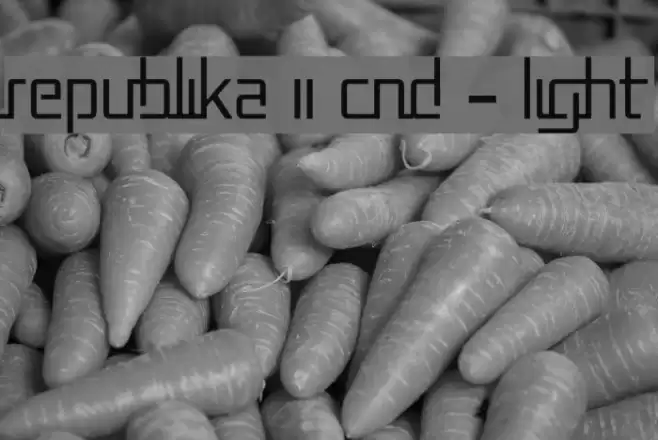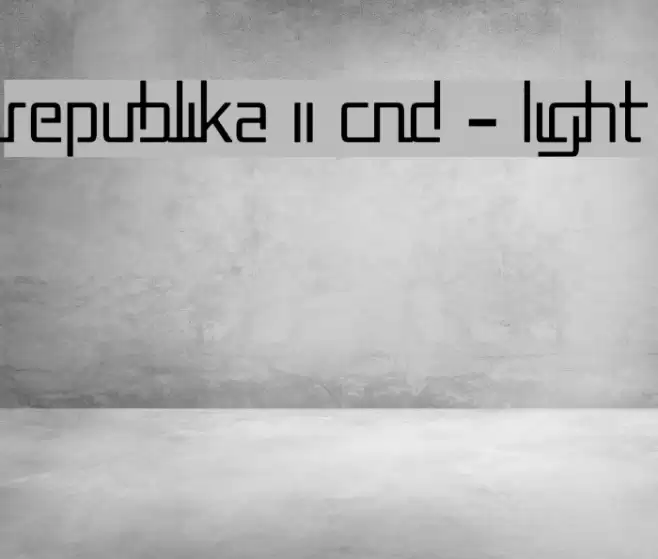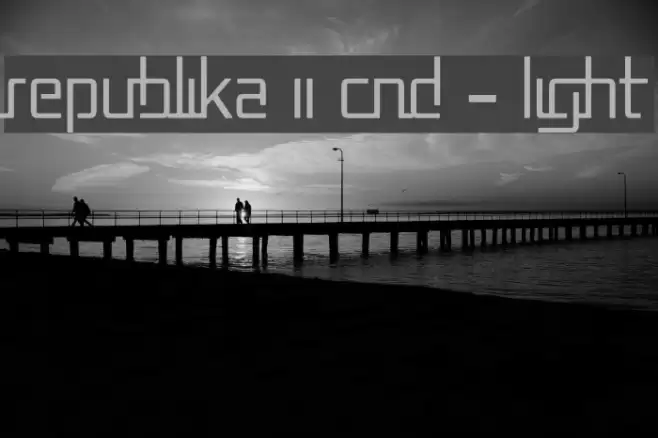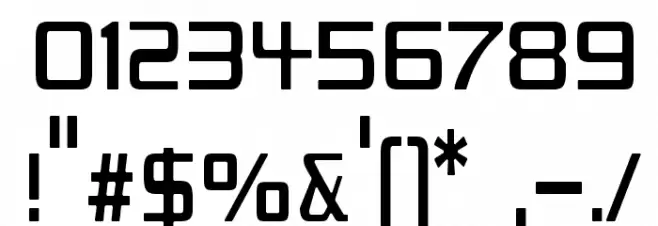
Republika II Cnd - Light Font
Republika II Cnd - Light Description
This font features a geometric and modern design with a condensed structure. The characters are constructed with clean, straight lines and sharp angles, giving it a futuristic and technical appearance. The uniform stroke width across all characters contributes to a sleek and minimalistic look. The uppercase and lowercase letters maintain a consistent height, enhancing readability and creating a cohesive visual flow. The numerals and special characters are designed to match the overall aesthetic, with a focus on clarity and precision. This font is ideal for projects that require a contemporary and innovative feel.
A geometric, modern font with a condensed, technical style from Uncategorized fonts.
- Proposed Projects: Ideal for tech branding, digital interfaces, modern posters, and futuristic designs.
- Use Case: Headlines, Logos, Digital interfaces